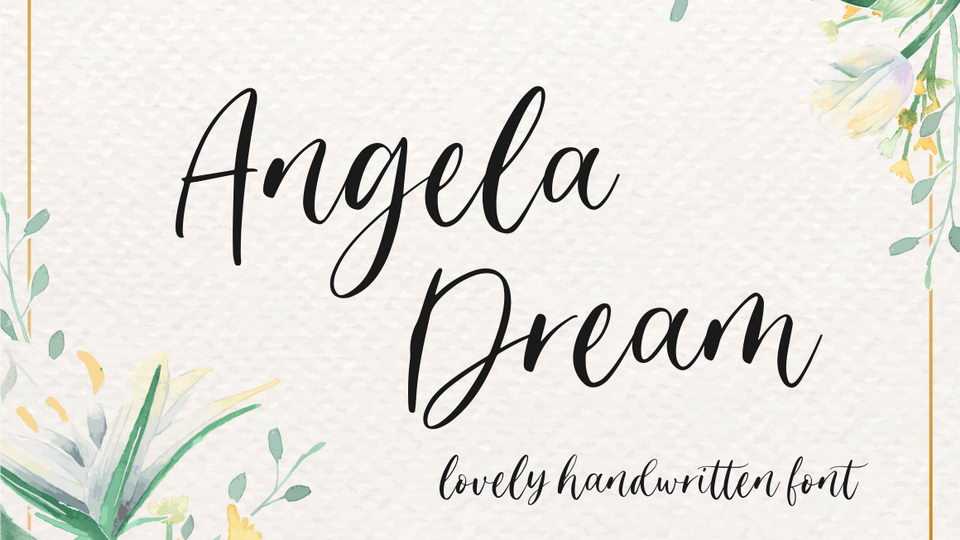
Download Angela Dream font, a lovely handwritten script with a natural flow. Angela Dream is perfect for crafts, logo, invitation, wedding, social media posts, label, photography watermark, special events or anything.
Designer: Sronstudio